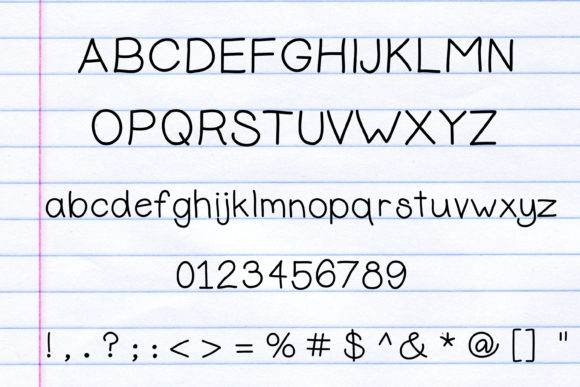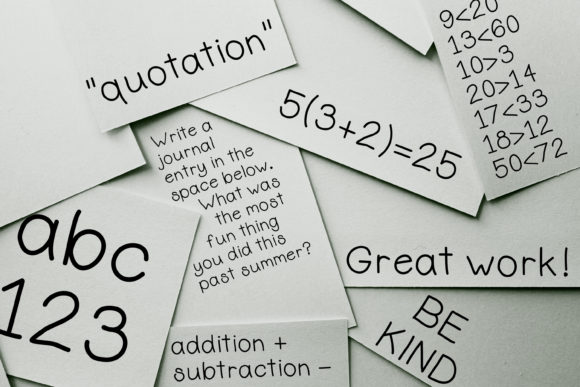
Introducing Elementary Basic Font: The Perfect Addition to Your Design Arsenal
Are you a designer or crafter looking for a font that can add a touch of authenticity and whimsy to your projects? Look no further than Elementary Basic, a fun and cute handwritten style font that’s perfect for school or children’s themed projects. In this article, we’ll dive into the world of Elementary Basic Font and explore its features, benefits, and uses.
What is Elementary Basic Font?
Elementary Basic Font is a handwritten style font that’s designed to bring a sense of fun and playfulness to your designs. With its cute and charming lettering, this font is perfect for projects that require a personal touch. Whether you’re working on a school project, a children’s book, or a craft project, Elementary Basic Font is sure to impress.
Key Features of Elementary Basic Font
- Handwritten style: Elementary Basic Font features a handwritten style that’s perfect for adding a personal touch to your designs.
- Cute and charming: The font’s cute and charming lettering makes it perfect for school or children’s themed projects.
- Easy to read: Despite its playful style, Elementary Basic Font is easy to read and understand, making it perfect for body text and headings.
- Versatile: This font is versatile and can be used for a wide range of projects, from digital designs to print materials.
Benefits of Using Elementary Basic Font
So, why should you choose Elementary Basic Font for your next project? Here are just a few benefits of using this amazing font:
- Adds a personal touch: Elementary Basic Font adds a personal touch to your designs, making them more relatable and engaging.
- Perfect for school projects: The font’s playful style makes it perfect for school projects, such as posters, flyers, and worksheets.
- Great for children’s themed projects: Elementary Basic Font is also great for children’s themed projects, such as children’s books, games, and activities.
Uses of Elementary Basic Font
So, what can you use Elementary Basic Font for? Here are just a few ideas to get you started:
- School projects: Use Elementary Basic Font for school projects, such as posters, flyers, and worksheets.
- Children’s books: This font is perfect for children’s books, including storybooks, activity books, and early readers.
- Craft projects: Elementary Basic Font is great for craft projects, such as scrapbooking, card making, and DIY signs.
- Digital designs: Use this font for digital designs, such as social media graphics, blog posts, and email newsletters.
Tips for Using Elementary Basic Font
Here are a few tips for using Elementary Basic Font:
- Use it for headings and titles: Elementary Basic Font is perfect for headings and titles, where you want to add a touch of personality to your design.
- Pair it with other fonts: Try pairing Elementary Basic Font with other fonts to create a unique and interesting design.
- Experiment with colors: Don’t be afraid to experiment with different colors and textures to add depth and interest to your design.
In conclusion, Elementary Basic Font is a fun and cute handwritten style font that’s perfect for school or children’s themed projects. With its key features, benefits, and uses, this font is sure to become a staple in your design arsenal. So why wait? Download Elementary Basic Font today and start adding a personal touch to your designs!